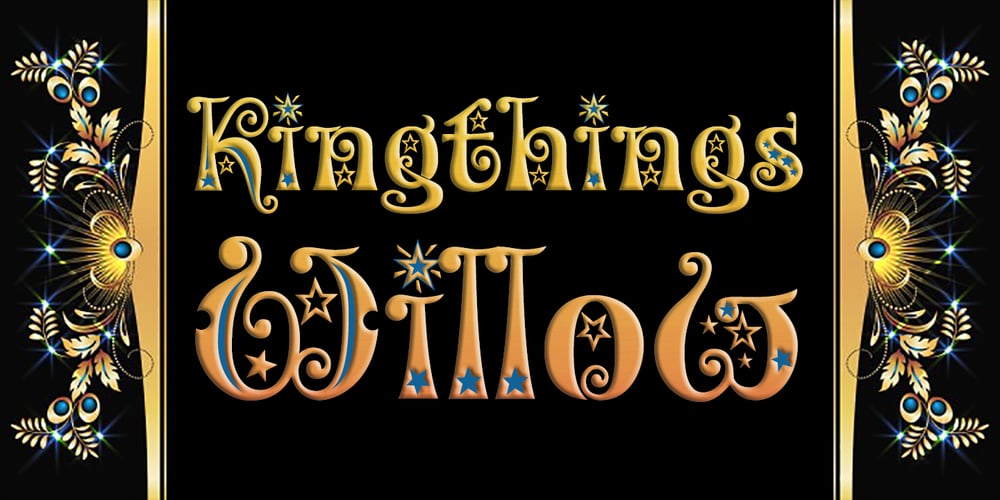
Kingthings Willow Pro Font Family was designed by Roger S. Nelsson, Kevin King and published by CheapProFonts. Kingthings Willow Pro contains 2 styles and family package options. These fonts just ooze Christmas and holiday spirit from every curve of every letter! If Kingthings Willowless Pro is a Christmas font, well… then Kingthings Willow Pro is a Christmas tree complete with decorations and lights! This font is sooooo ornamented – but still quite readable. I have cleaned up all the outlines, redesigned the F (which looked more like a J), tweaked some more letters and then expanded the font with the usual multilingual glyphs. I loved this font when I first saw it, but was very nervous that it would be difficult to design the accents – but it was a breeze! It has been one of the most enjoyable fonts to rework so far. Hope you will enjoy it, too. ALL fonts from CheapProFonts have very extensive language support: They contain some unusual diacritic letters (some of which are contained in the Latin Extended-B Unicode block) supporting: Cornish, Filipino (Tagalog), Guarani, Luxembourgian, Malagasy, Romanian, Ulithian and Welsh. They also contain all glyphs in the Latin Extended-A Unicode block (which among others cover the Central European and Baltic areas) supporting: Afrikaans, Belarusian (Lacinka), Bosnian, Catalan, Chichewa, Croatian, Czech, Dutch, Esperanto, Greenlandic, Hungarian, Kashubian, Kurdish (Kurmanji), Latvian, Lithuanian, Maltese, Maori, Polish, Saami (Inari), Saami (North), Serbian (latin), Slovak(ian), Slovene, Sorbian (Lower), Sorbian (Upper), Turkish and Turkmen. And they of course contain all the usual “western” glyphs supporting: Albanian, Basque, Breton, Chamorro, Danish, Estonian, Faroese, Finnish, French, Frisian, Galican, German, Icelandic, Indonesian, Irish (Gaelic), Italian, Northern Sotho, Norwegian, Occitan, Portuguese, Rhaeto-Romance, Sami (Lule), Sami (South), Scots (Gaelic), Spanish, Swedish, Tswana, Walloon and Yapese.